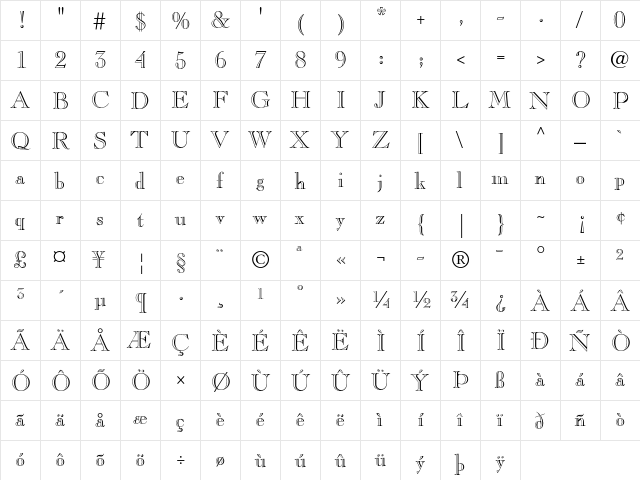
Caslon Open Face Light
Design Context for Caslon Open Face Typeface
Caslon Open Face takes a measured approach to typography — its balanced proportions and neutral character make it a reliable workhorse for both digital and print work. The delicate stroke weight brings airiness and refinement to layouts.